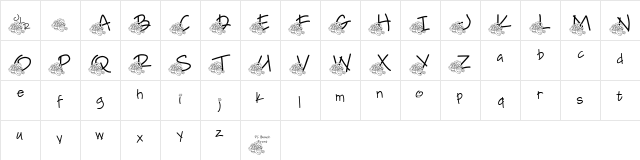
FL Valentine Regular
Design Context for FL Valentine Typeface
FL Valentine is a composed and adaptable typeface that performs quietly and consistently across a wide range of design contexts.